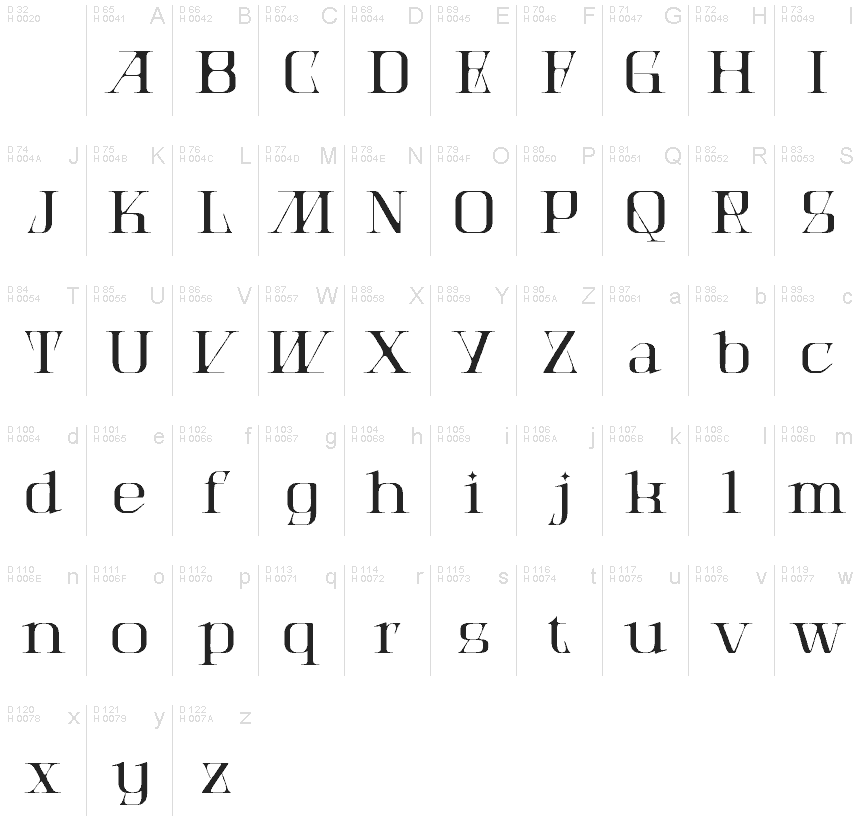
CSDiamondDrawn-Regular Demo
CS Diamond Drawn font by Craft Supply Co. is a free serif font with all the classic features. The elements are designed to deliver elegance, with stylish details, high contrast, and an overall sophisticated appeal choice guaranteed by a timeless aesthetic that’ll keep this font relevant for years to come.